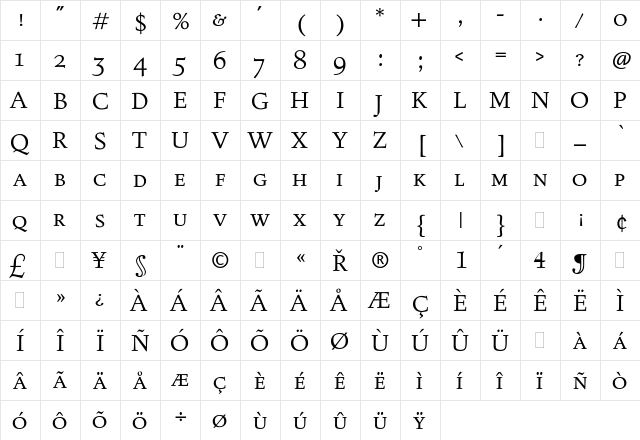
FiguralSmallCapsPlain Regular
Design Context for FiguralSmallCapsPlain Typeface
FiguralSmallCapsPlain is a composed and adaptable typeface that performs quietly and consistently across a wide range of design contexts.